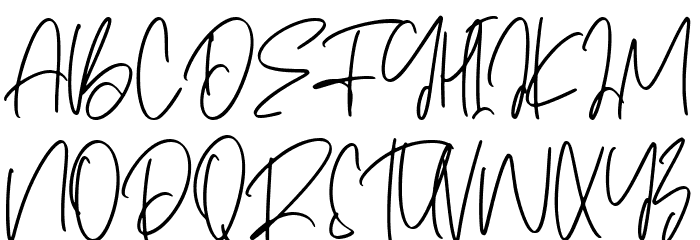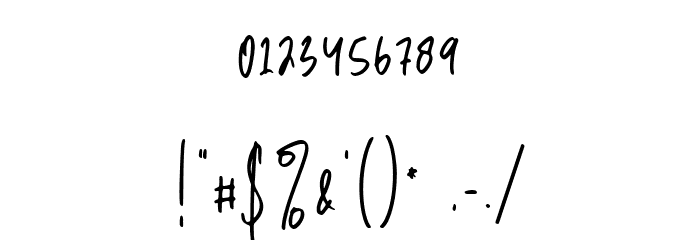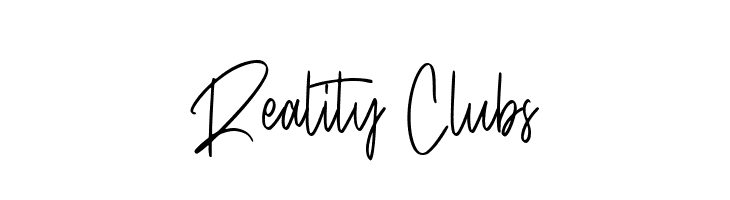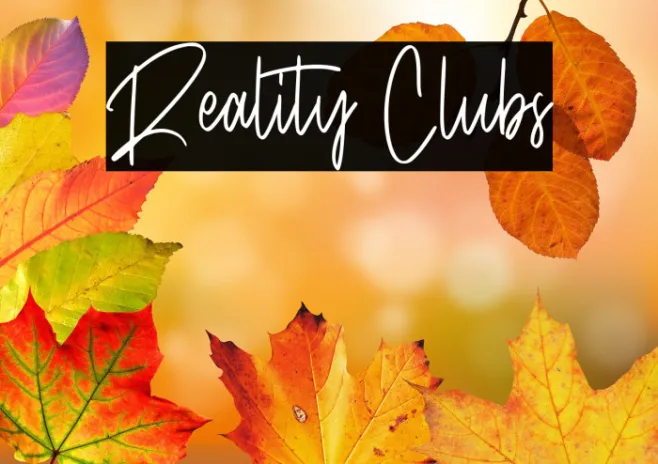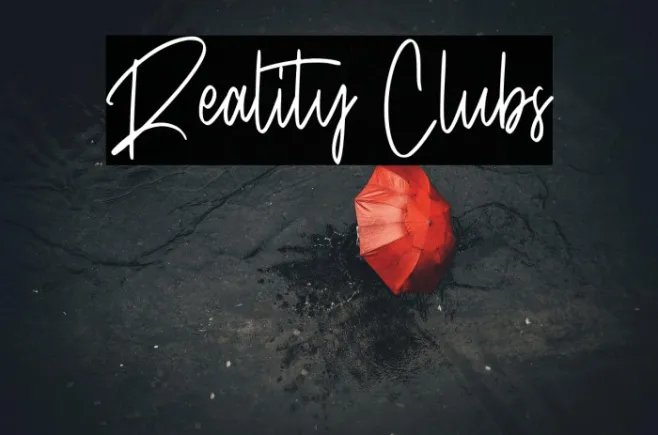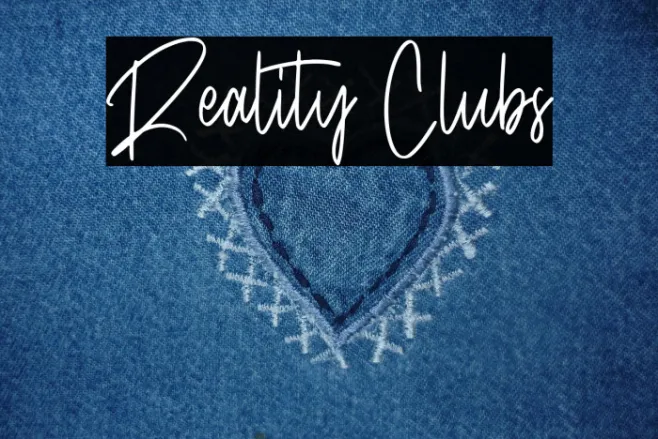
Reality Clubs Font
A playful and expressive handwritten font with a casual and flowing style, featuring irregular strokes and a personal touch.
Expressive handwritten font with a casual style.
- Proposed Projects: Greeting cards, invitations, personal branding.
- Category: Handwritten
- Overall Style: Casual, Playful
- Use Case: Logos, Headlines, Personal projects